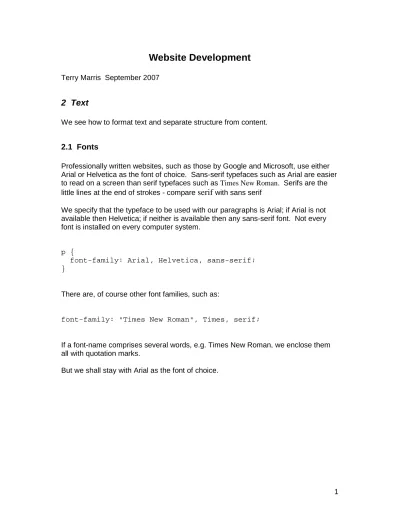
We see how to format text and separate structure from content.
2.1 Fonts
Professionally written websites, such as those by Google and Microsoft, use either Arial or Helvetica as the font of choice. Sans-serif typefaces such as Arial are easier to read on a screen than serif typefaces such as Times New Roman. Serifs are the little lines at the end of strokes - compare serif with sans serif
We specify that the typeface to be used with our paragraphs is Arial; if Arial is not available then Helvetica; if neither is available then any sans-serif font. Not every font is installed on every computer system.
There are, of course other font families, such as:
If a font-name comprises several words, e.g. Times New Roman, we enclose them all with quotation marks.
2.2 Size
We specify the height of characters in em. An em is the height of the default text on the user's computer system.
As a general rule, we set the line-height to 1.5 times the type size.
There are other units well suited for screen display such as percent (%) and pixels (px).
2.3 Validating a Style Sheet
The entire style sheet file, created with Notepad and named textstyle.css, looks like this:
2.4 Include a Style Sheet in HTML
Style sheets determine the structure of a web page. HTML determines the content of a web page.
One way to include the style sheet in HTML is to use the @import statement. This statement must be enclosed within <style type="text/css"> and </style> because it is a Cascading Style Sheet (CSS) statement and not an HTML one.
2.5 Line Breaks
One way to force line breaks in text (when displayed by a browser on the screen) is to use the <br> element at the end of each line.
2.6 Headings
We determine the size, style and colour in the style sheet.
h1 represents the most important headings. Here we specify its size to be 3em, the text colour to be blue, the background colour to be the colour of its container (in our case that is the screen) and the heading to be in the centre. Whenever we specify a font colour we are obliged to specify its background.
2.7 The Style Sheet
The entire style sheet, named textstyle.css, is shown below.
2.8 The HTML File
The entire HTML file, named text.html, is shown below.
2.9 Exercise
• Experiment with the font, size and line height to find a combination you like the look of.